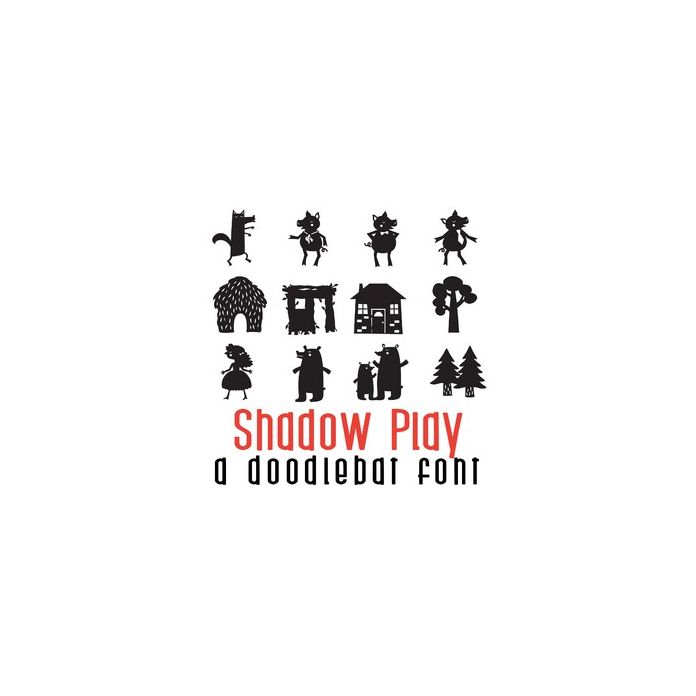
This fun doodle style doodlebat font features 30 fun silhouetted story characters. Perfect for cards, crafts, gifts, decor, scrapbook pages, planner stickers and more! Dingbats are A-Z and 0-3.